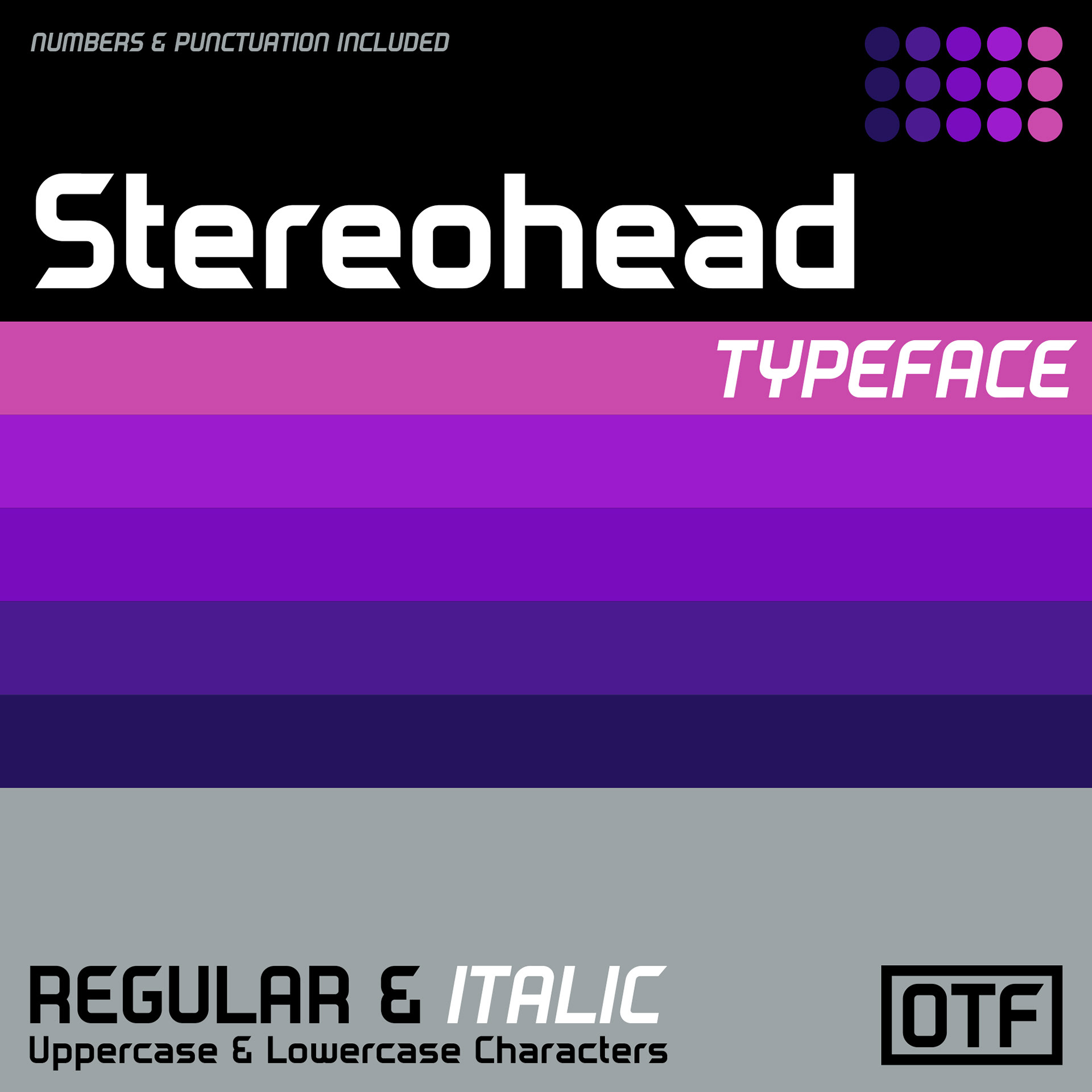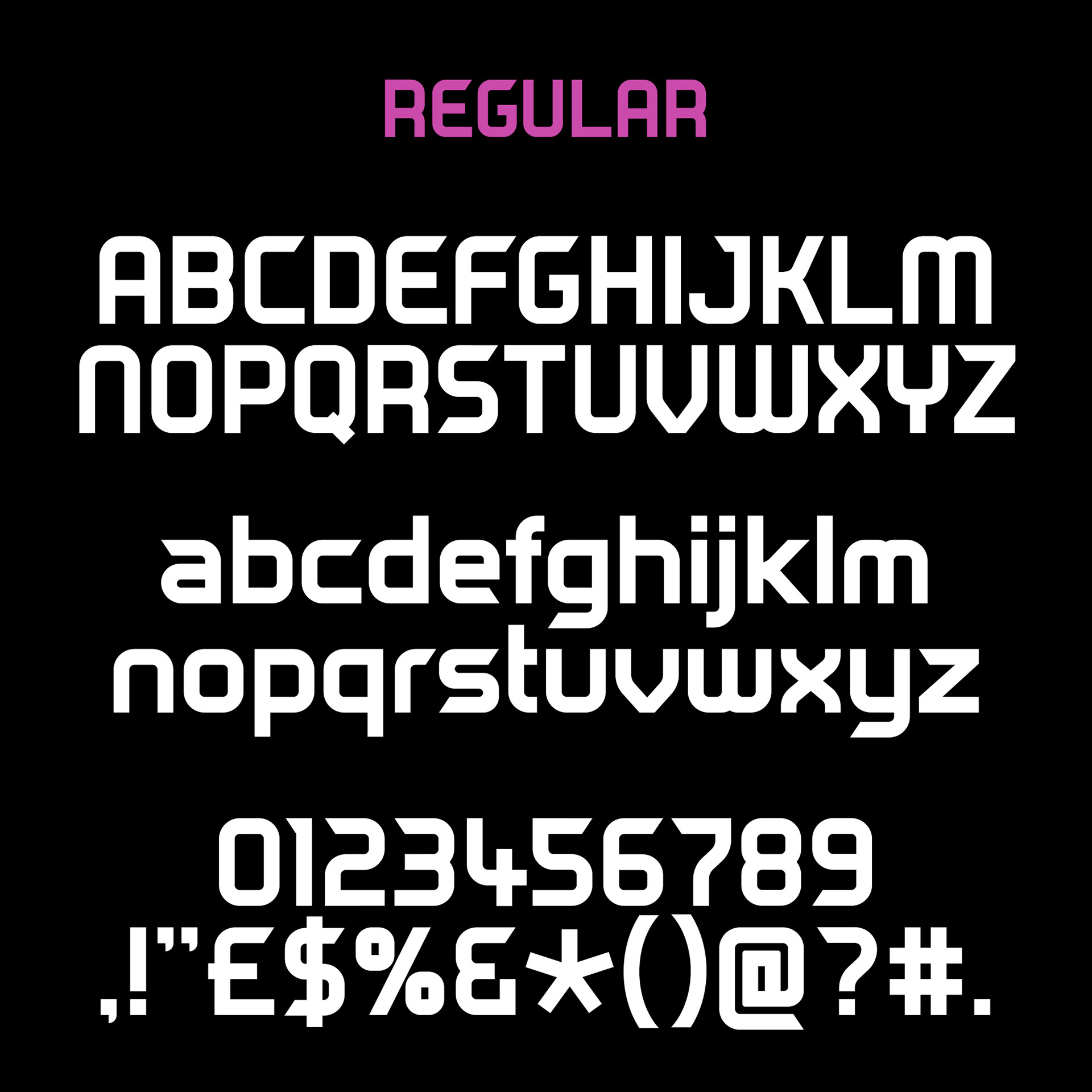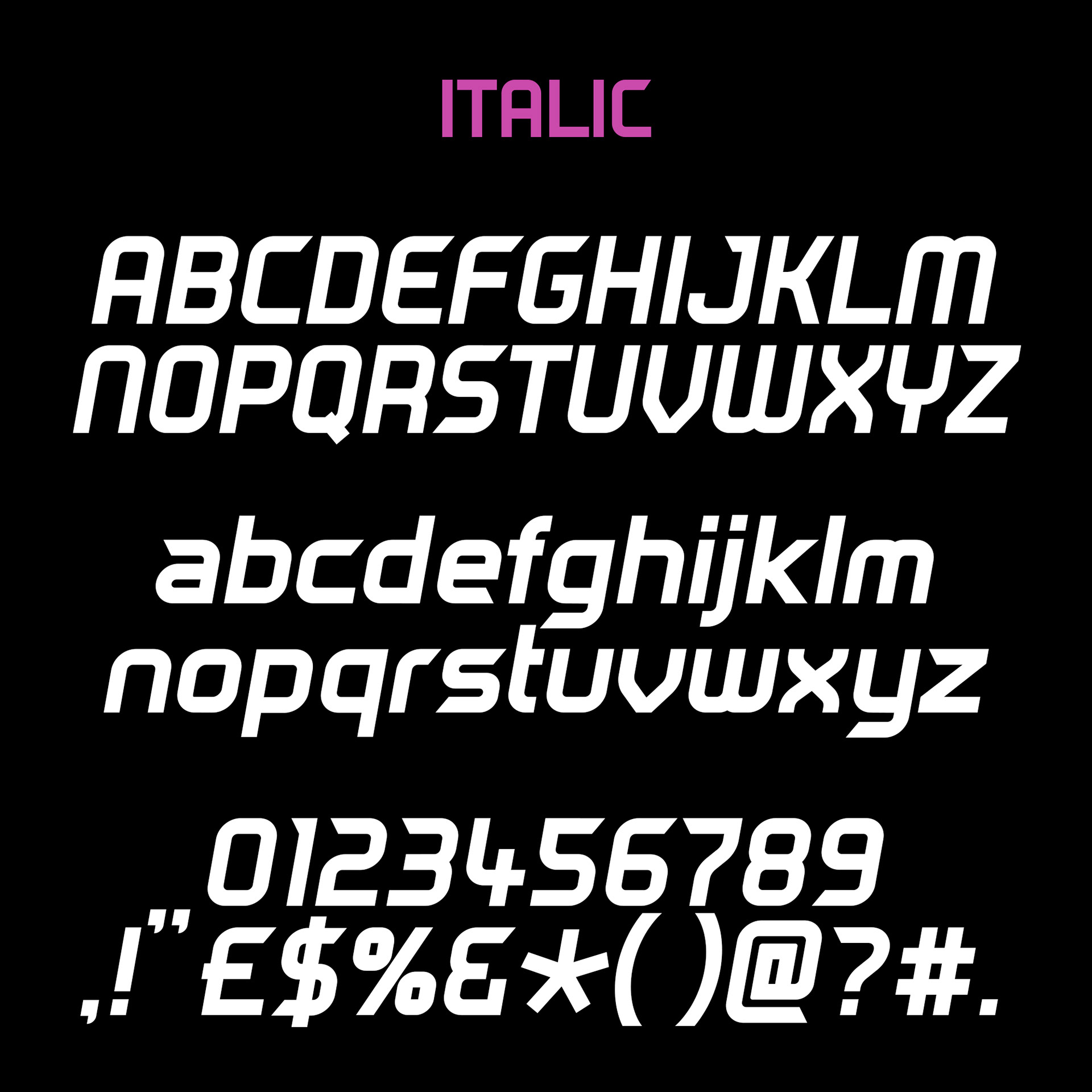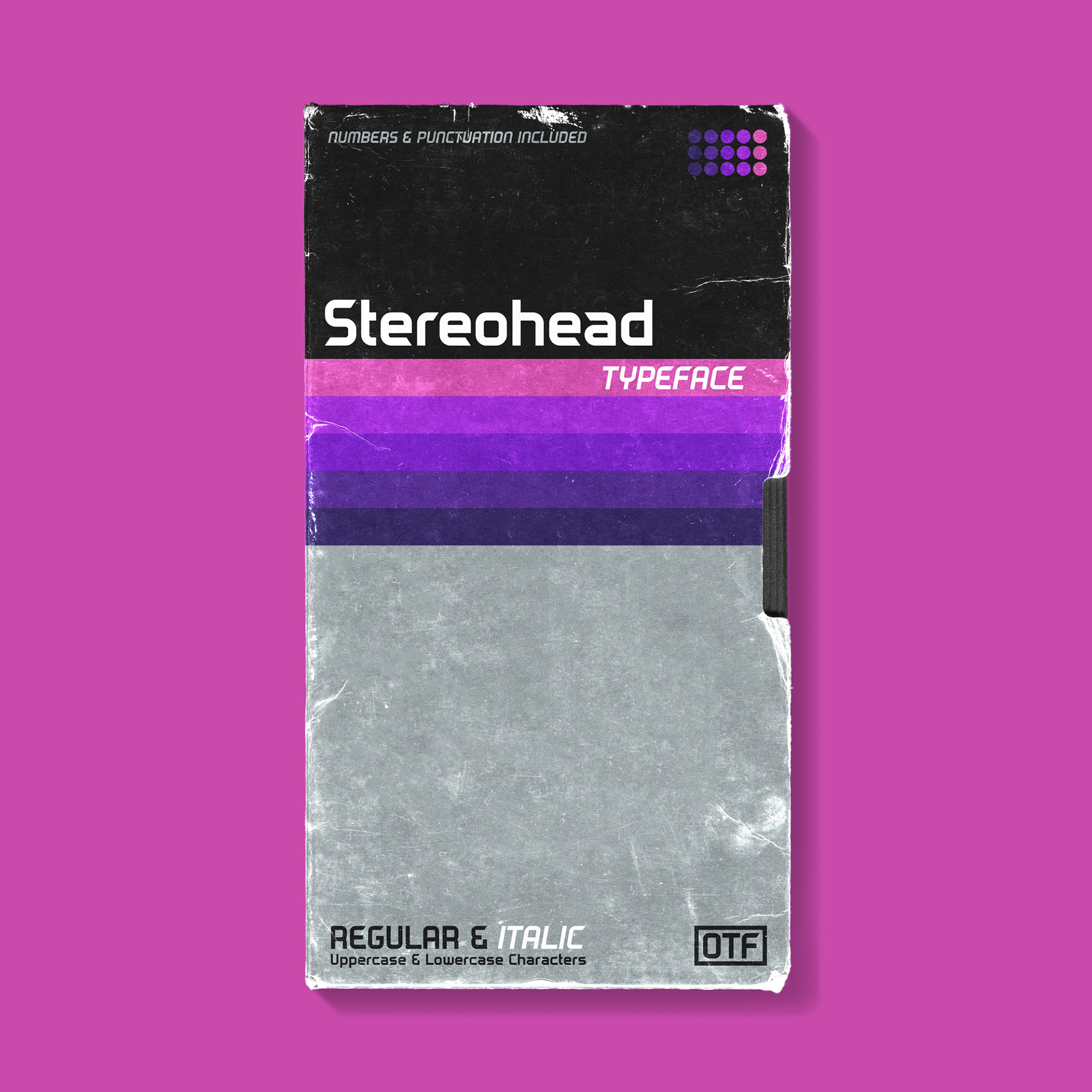
Stereohead is a retro/futuristic sans serif typeface. This typeface comes with regular and Italic fonts, uppercase and lowercase characters, numbers and a selection of punctuation.